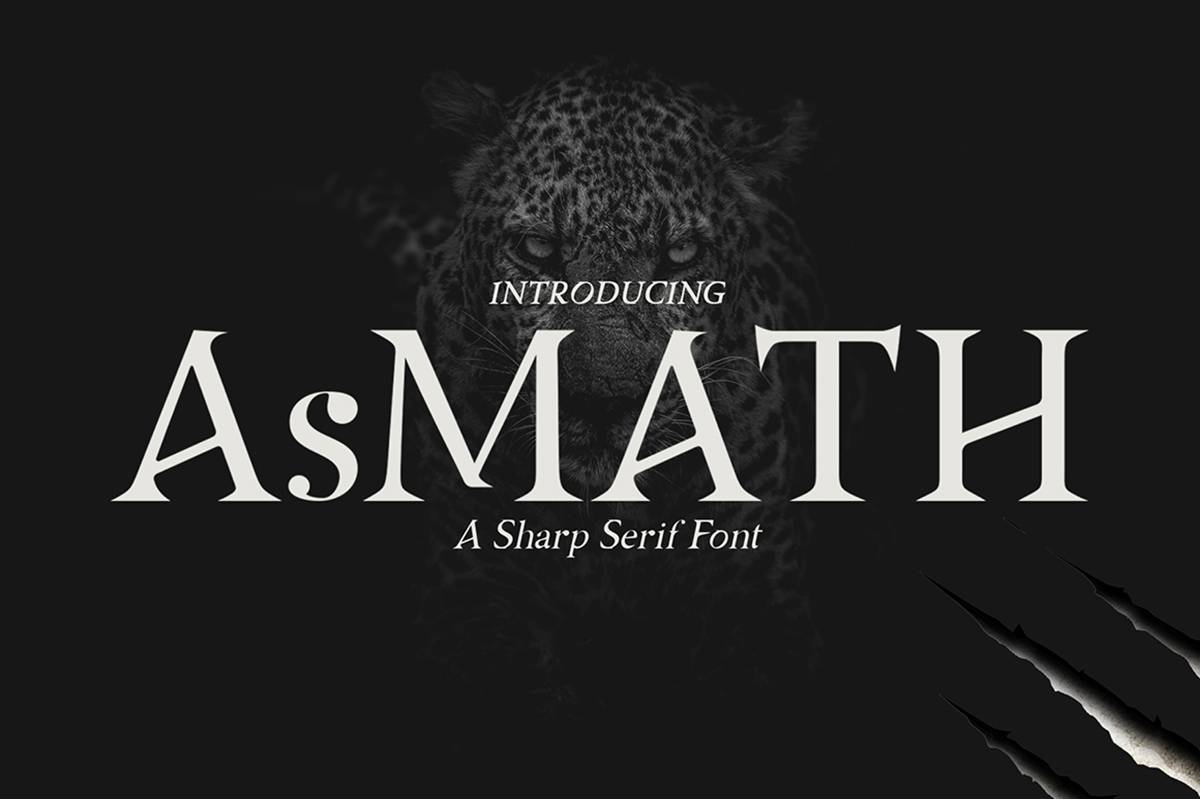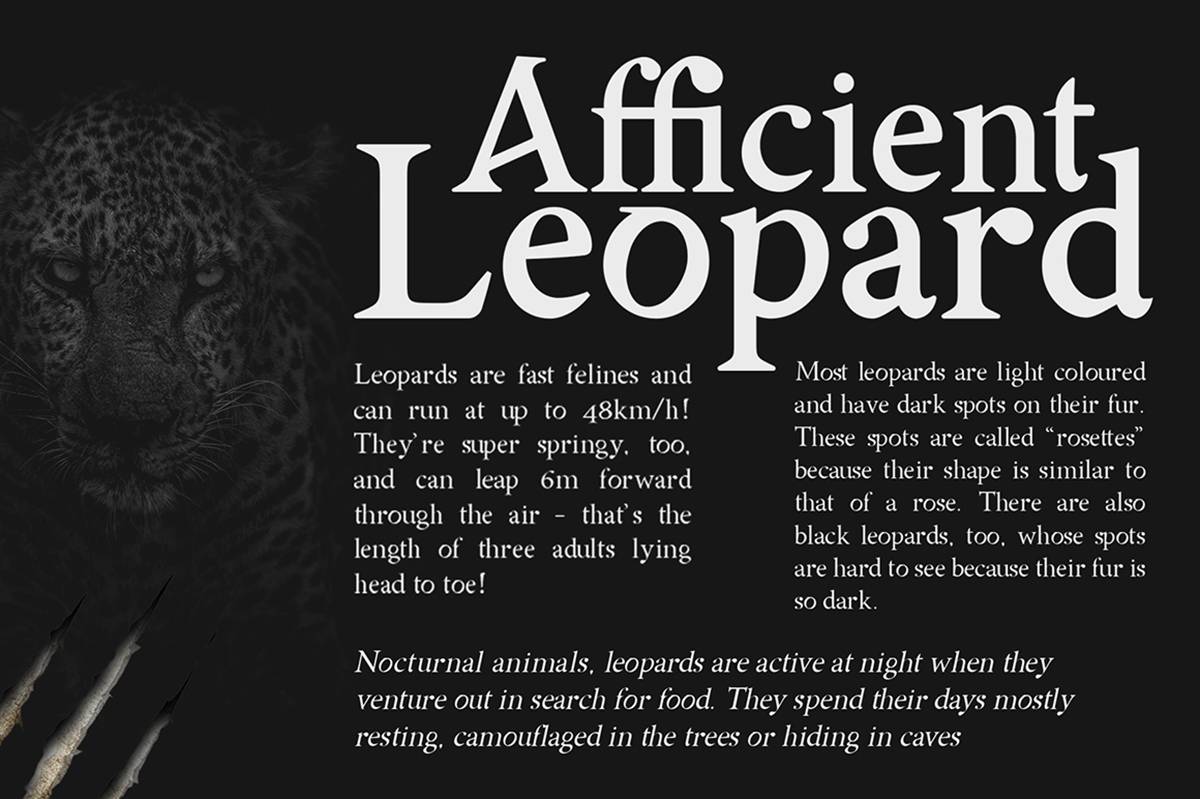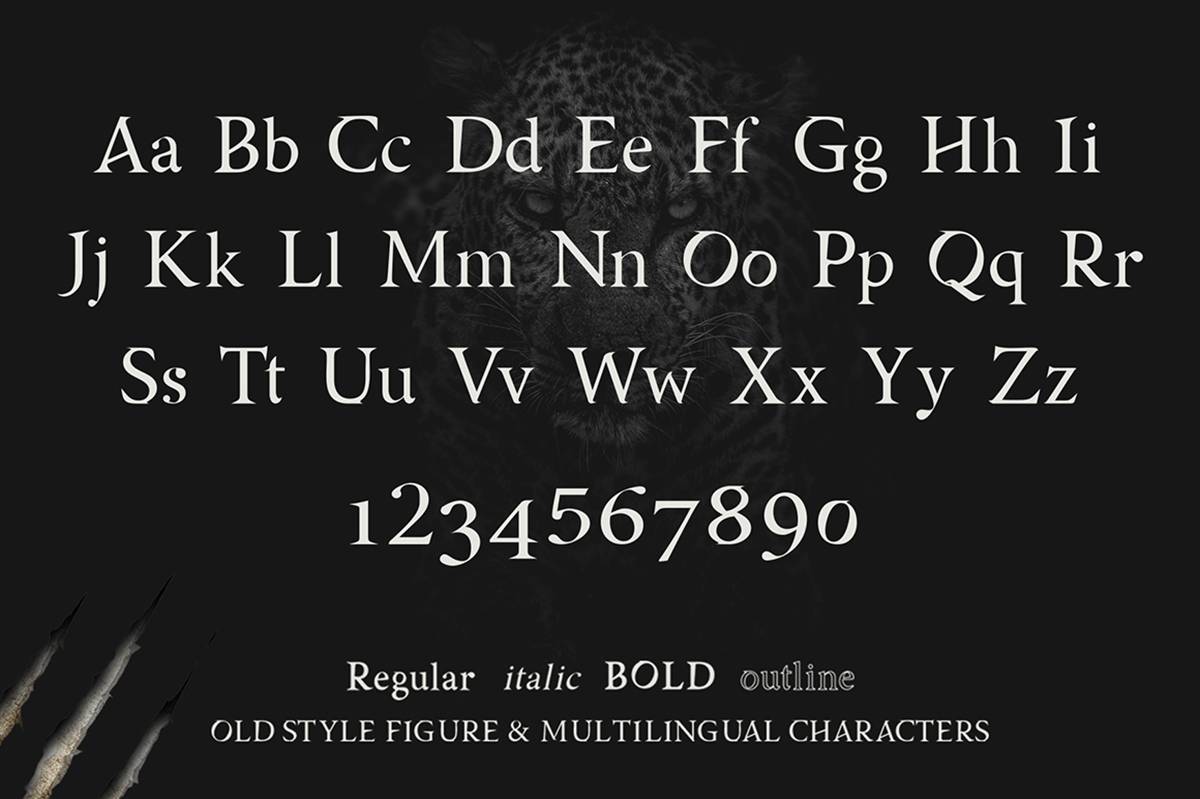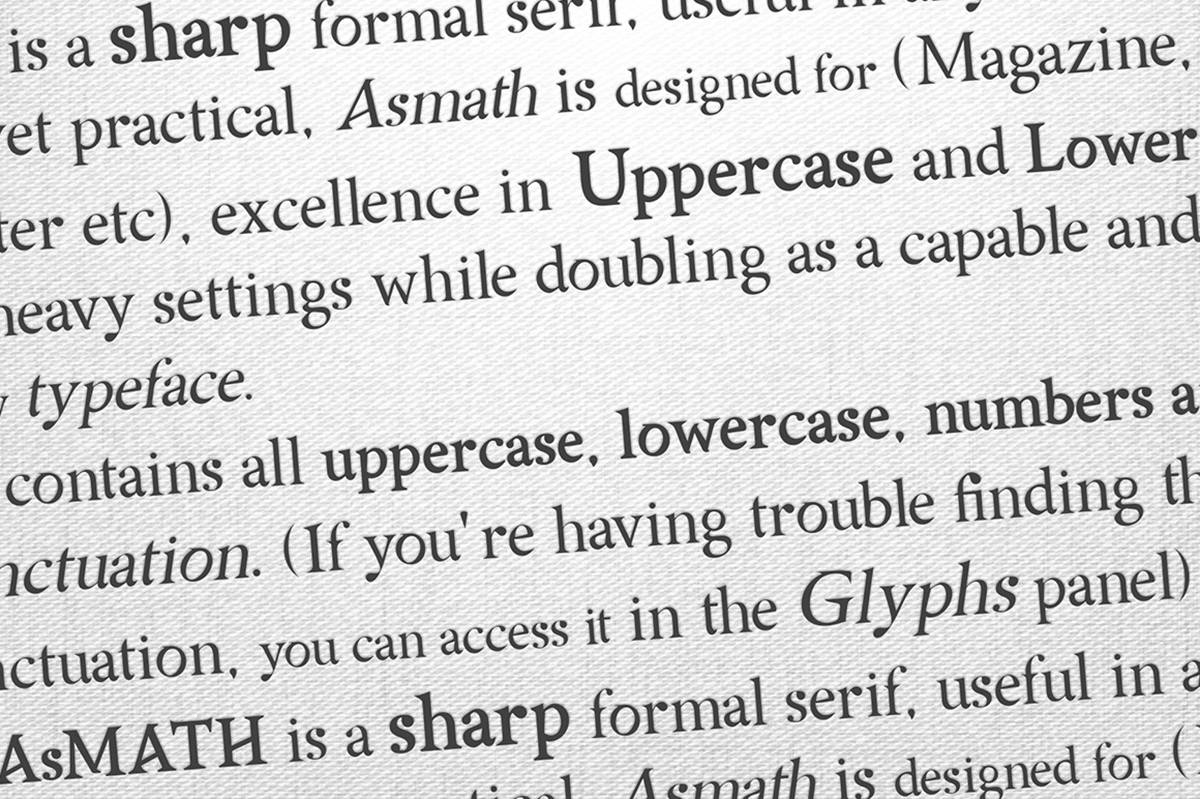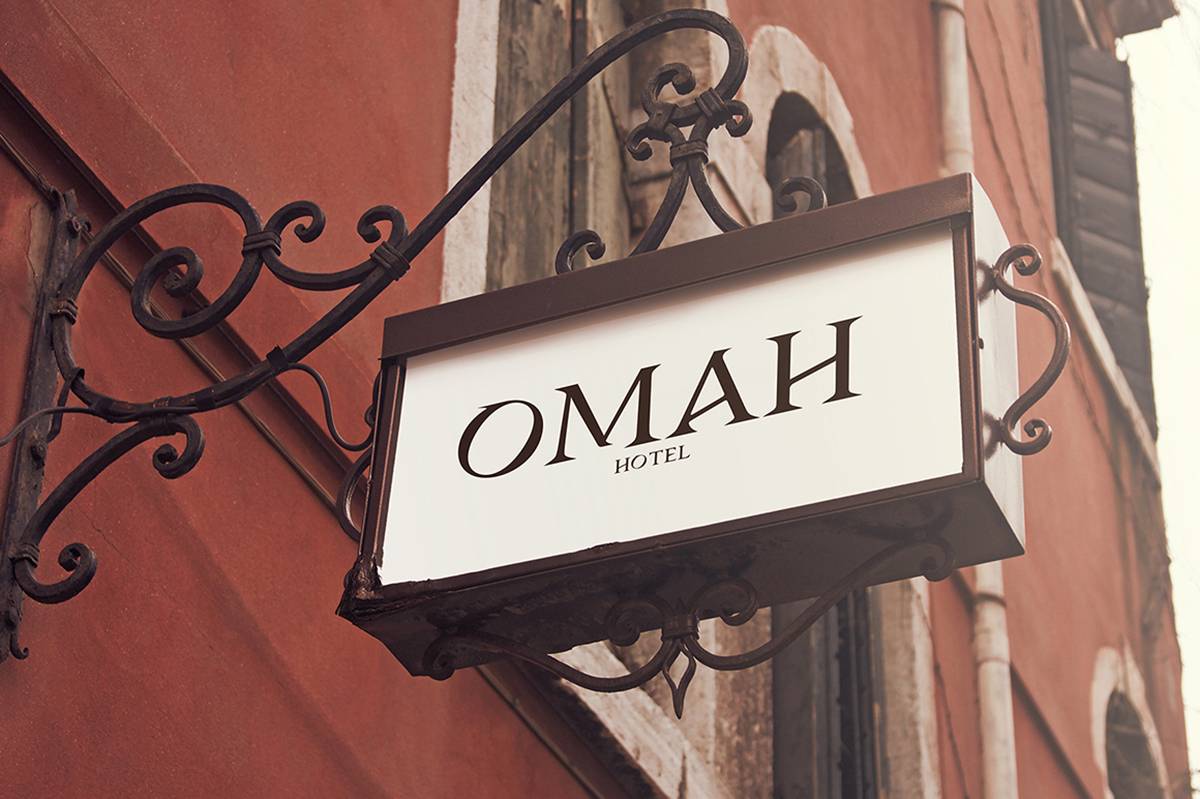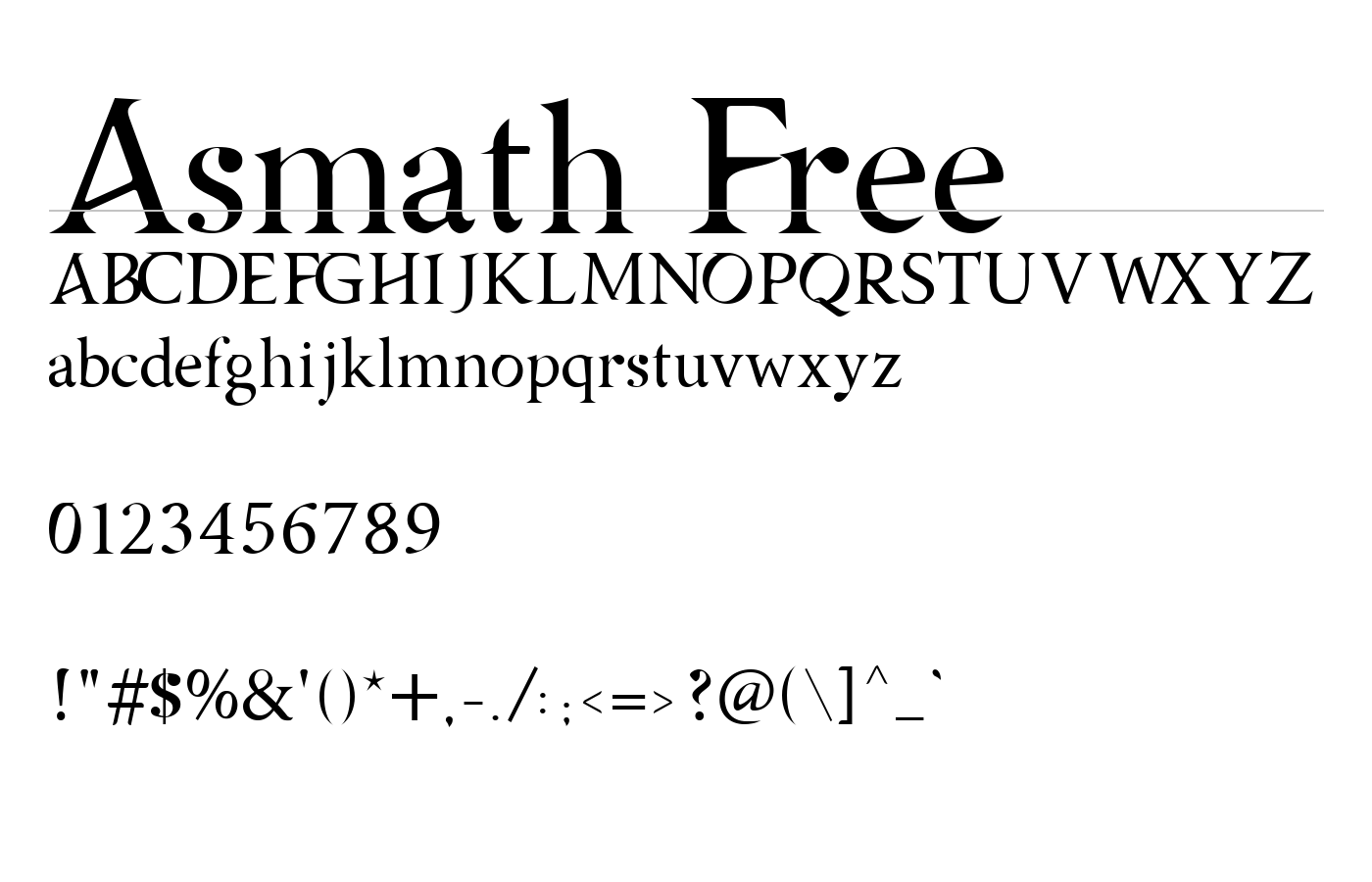
AsMATH is a refined serif font that combines classic elegance with a slightly modern touch, featuring sharp, thin serifs and moderate stroke contrast. Its tall x-height and clear, well-defined characters make it highly legible, ideal for academic, scientific, or formal documents where clarity and sophistication are key. This font works best in headlines, equations, and print where a traditional yet polished appearance is desired.
AsMATH Font
About AsMATH Font
| Font family | AsMATH Font |
| Release date | 2018-06-04 |
| Designer | Degi Kurniawan |